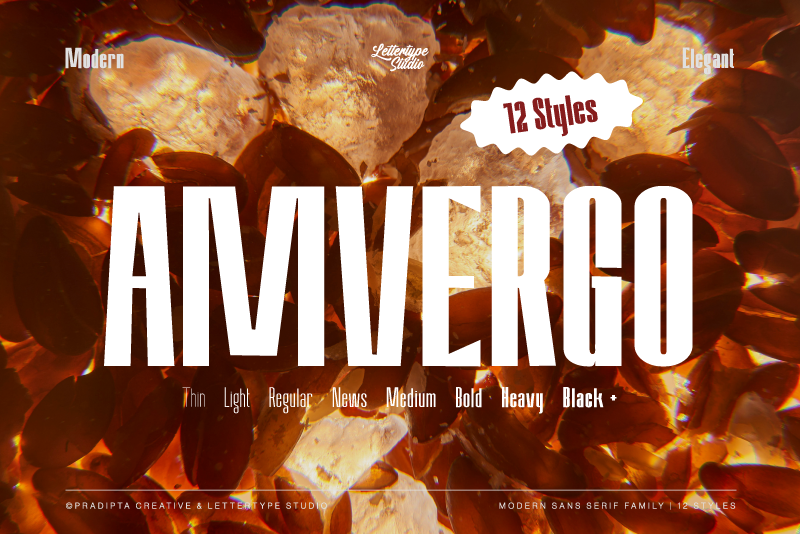
Amvergo Font
About Amvergo
Amvergo is an elegant, modern, unique, and stunning condensed sans-serif font perfect for elevating your design with a professional look. These fonts feature clean lines and condensed proportions, offering a stylish, bold, contemporary aesthetic perfect for headlines.
Amvergo font family offering multiple styles and multilingual support, elevates your digital and print creations with a unique modern and vintage flair. This font works in large and small sizes and includes 12 styles from thin to extra black.